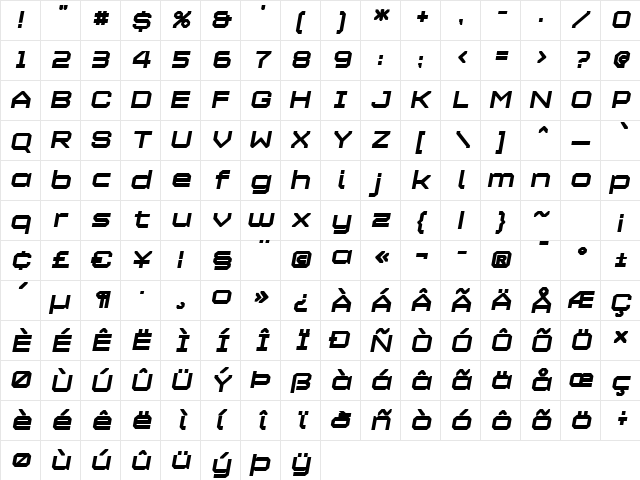
Maetl ExtraBoldOblique Font Preview
Design Context for Maetl Typeface
Maetl offers clean, dependable letterforms without strong stylistic allegiance, making it a practical choice for designers who need flexibility. The dynamic lean of this cut emphasises speed and emphasis in any layout. The heavy weight commands attention and anchors typographic hierarchies.